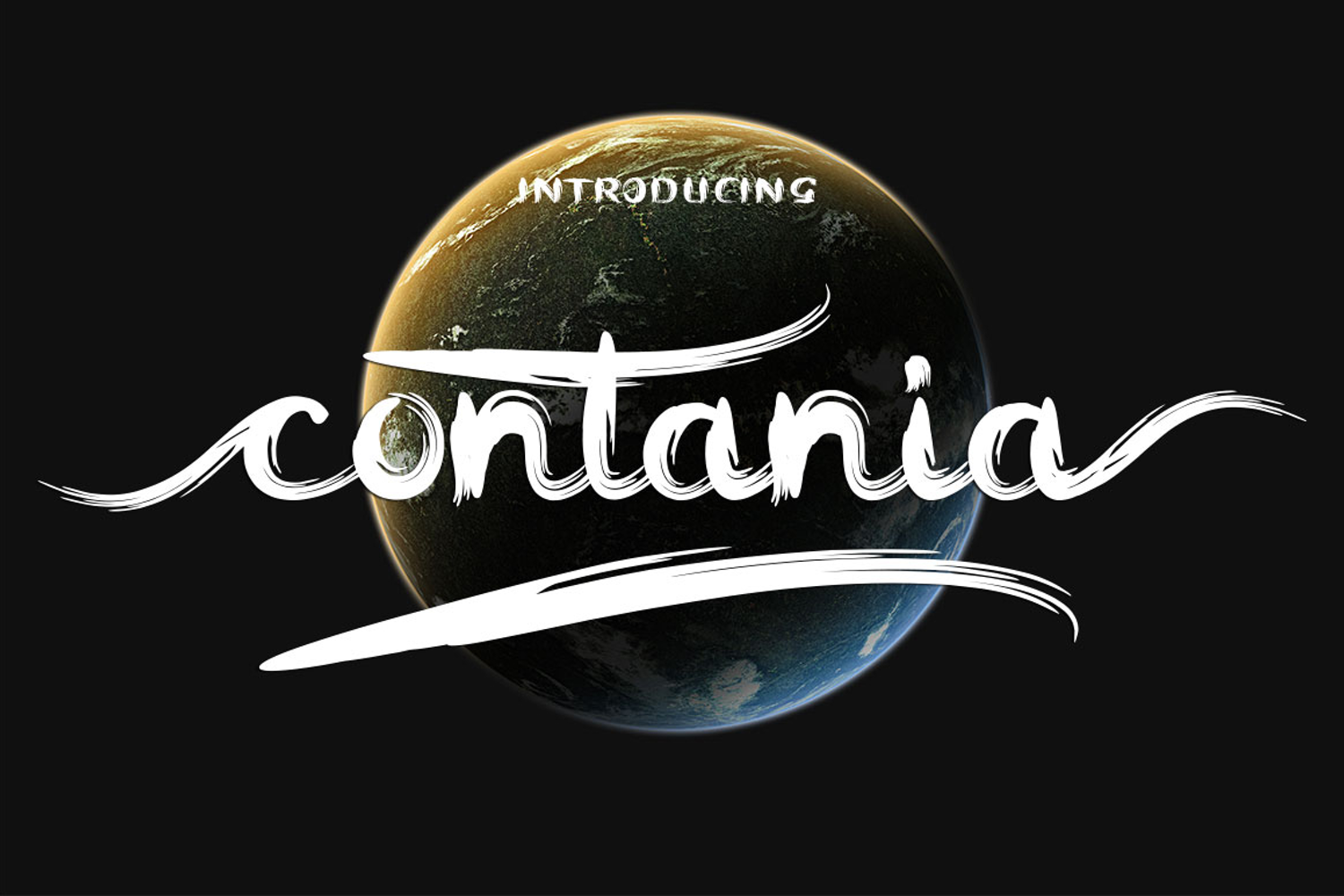
Contania
The Contania is a fresh and modern script font. Its decorative characters and dancing linage give it an elegant feel which can be used to create luxurious designs.
Contania The comes with 608 glyphs. Alternate characters are divided into several Open Type features such as Swash, Stylistic Sets, Stylistic Alternate, Contextual Alternate. Open Type features are accessible by using Open Type savvy programs such as Adobe Illustrator, Adobe InDesign, Adobe Photoshop Corel Draw X versions, and Microsoft Word. And this font has code PUA unicode (font with special code). So that all alternative characters can be easily accessed by craftsmen or designers.